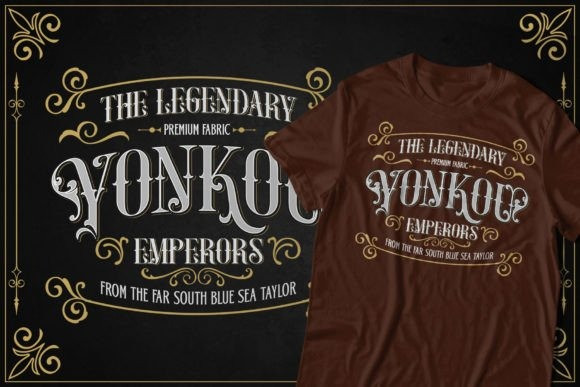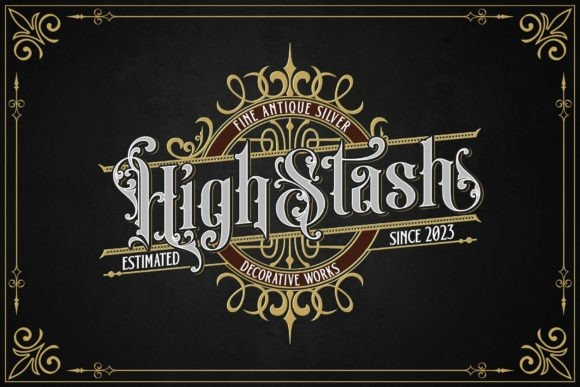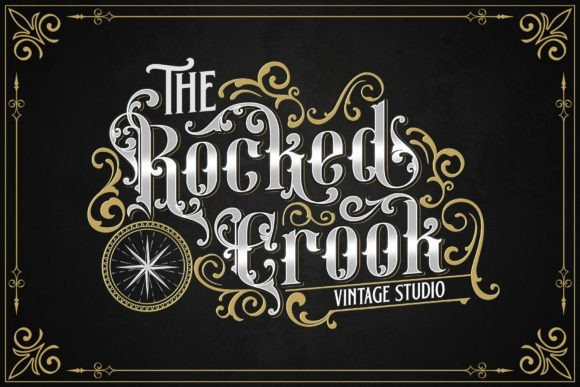
Bull Stand Font
Bull Stand Font, is a distinctive and ornate font that exudes the elegance and intricacy of the Victorian era. This font is a testament to the attention to detail and craftsmanship that characterized the design aesthetics of that period.